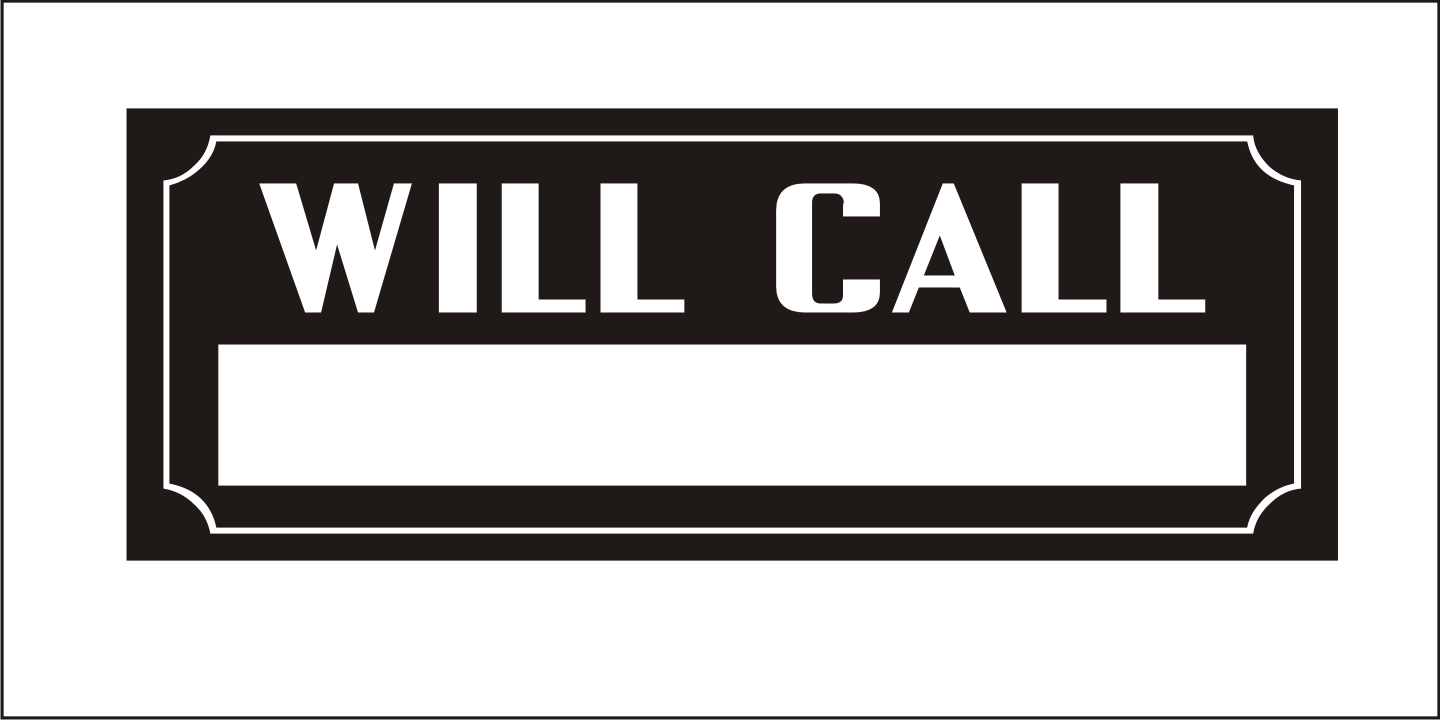
Typesetter Treasures
Cartoon cuts, sales builders, catchwords, mortised cuts, decorative embellishments and stock art are what comprise the images found within Typesetter Treasures JNL. Redrawn from vintage sources, these nostalgic illustrations add warmth and charm to any print or web project.
Typesetter Treasures JNL Regular by Jeff Levine Fonts